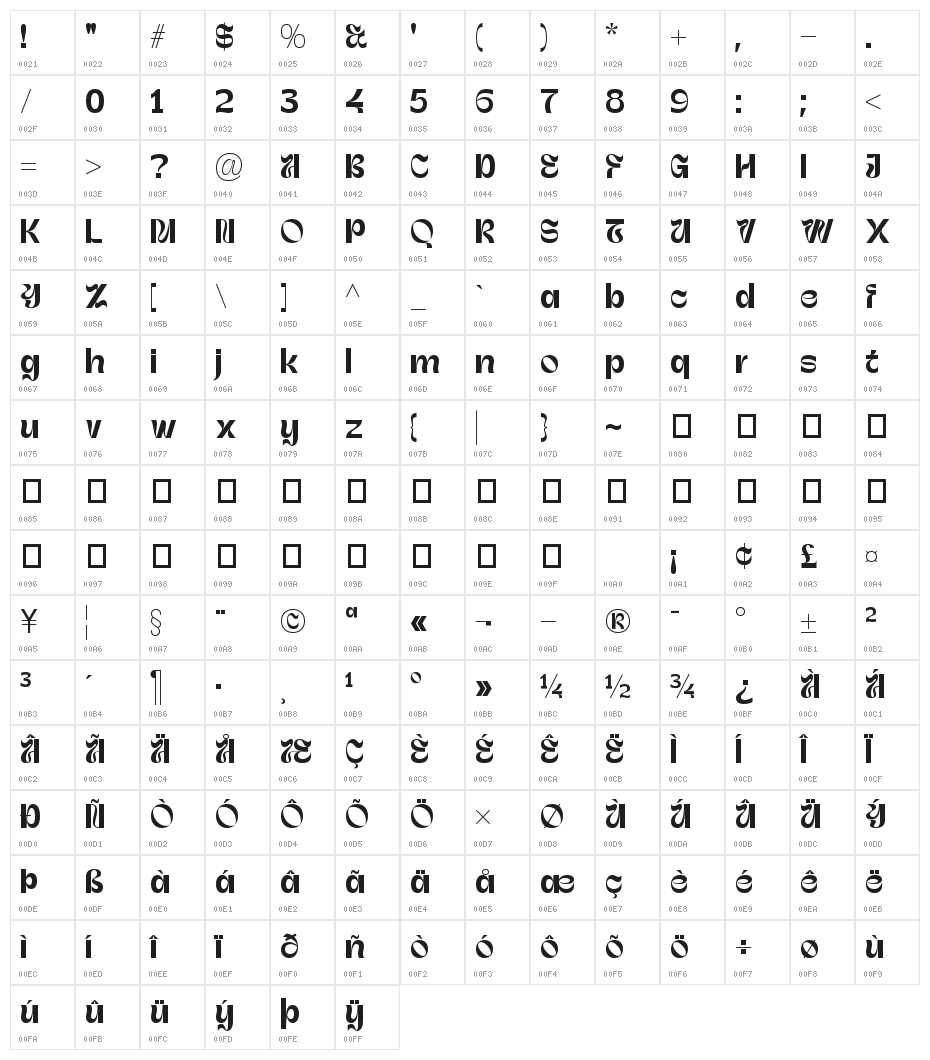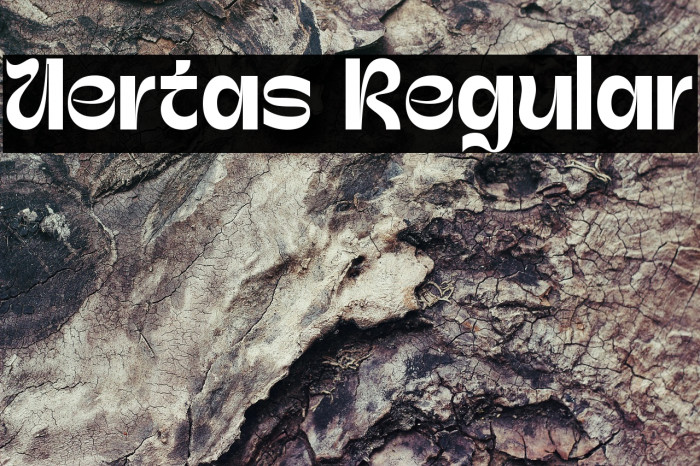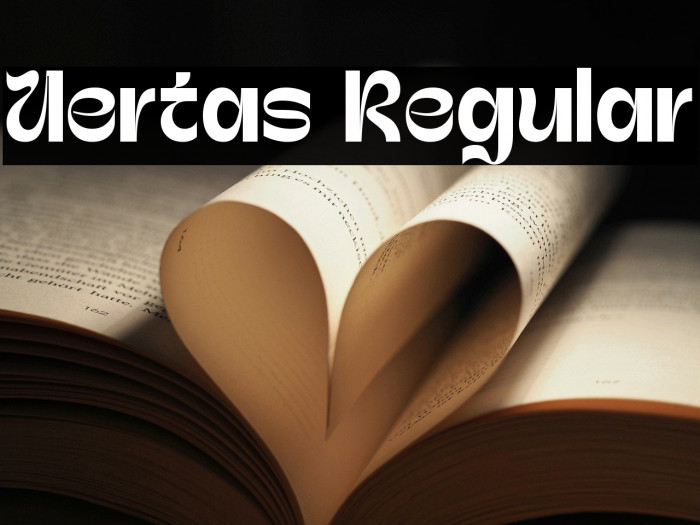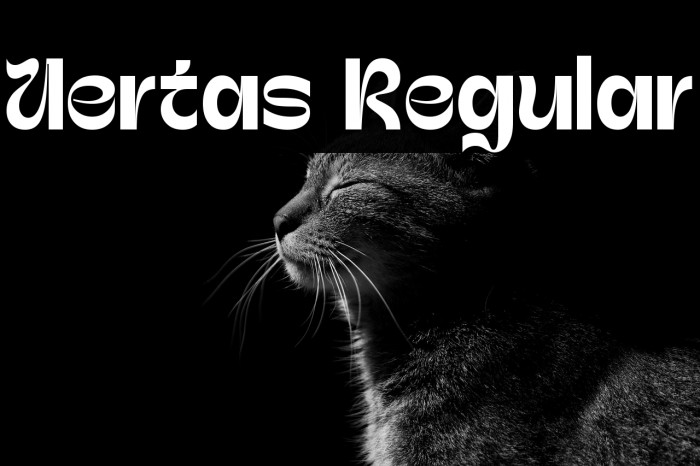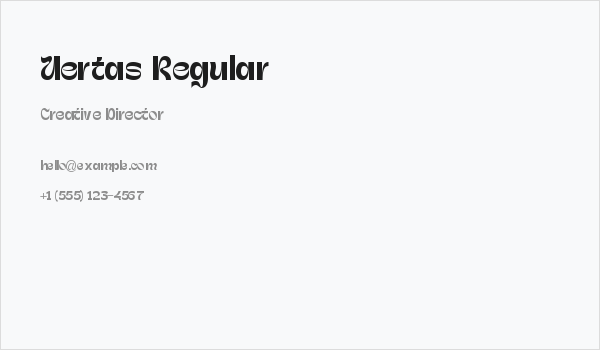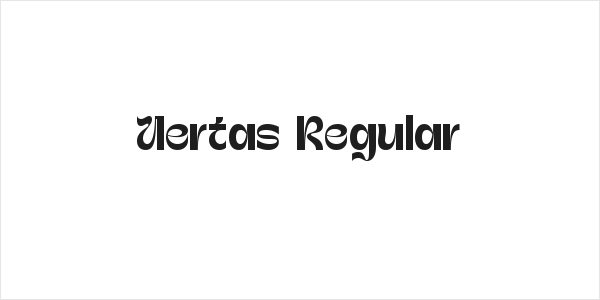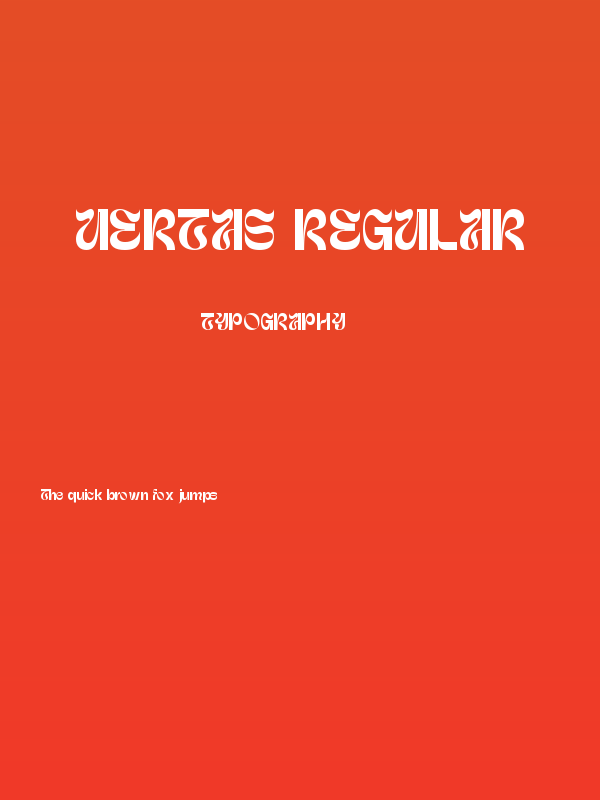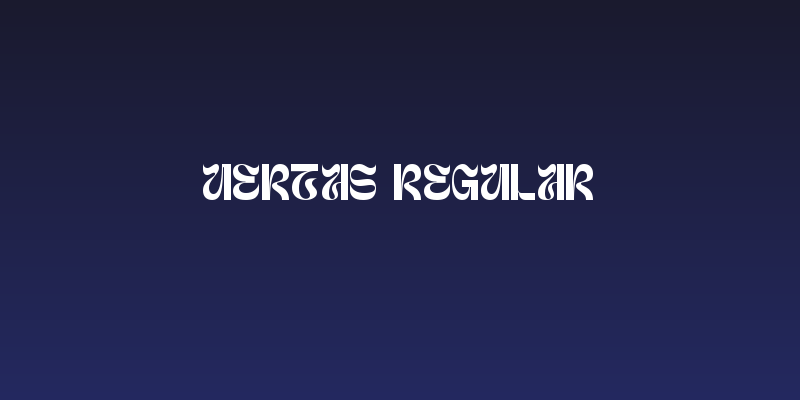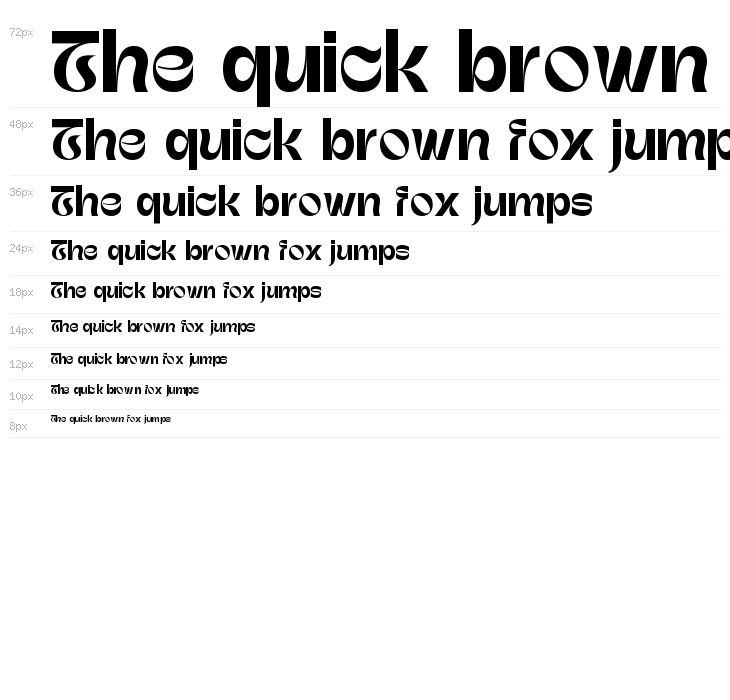
Uertas Regular Font
Uertas Regular Description
This font exhibits a bold and dynamic style with unique, curvilinear elements that give it a distinct and artistic flair. The uppercase letters feature strong, angular lines combined with smooth curves, creating a striking contrast. The lowercase letters maintain this boldness while offering a slightly softer appearance. The numerals are consistent with the overall design, presenting a cohesive look. Special characters are creatively integrated, maintaining the font's artistic essence. This font is ideal for projects that require a strong visual impact and a modern, creative touch.
| Proposed Projects | Ideal for branding, poster design, album covers, and creative advertising. |